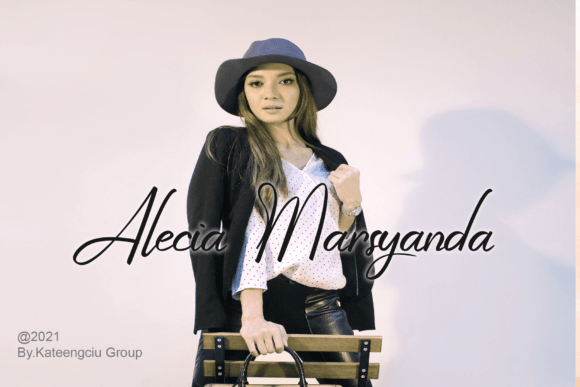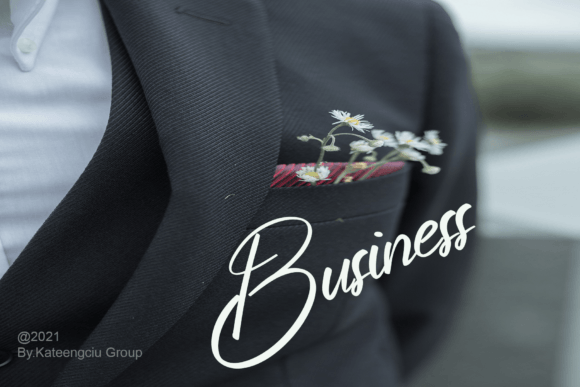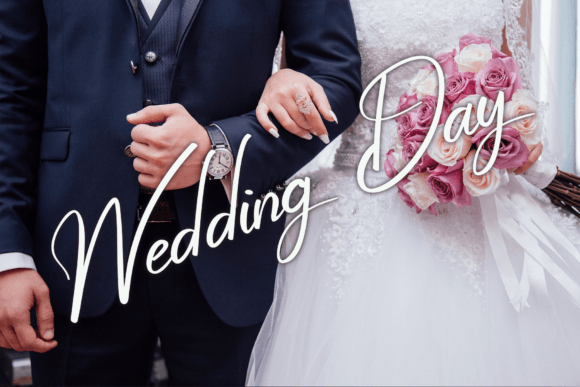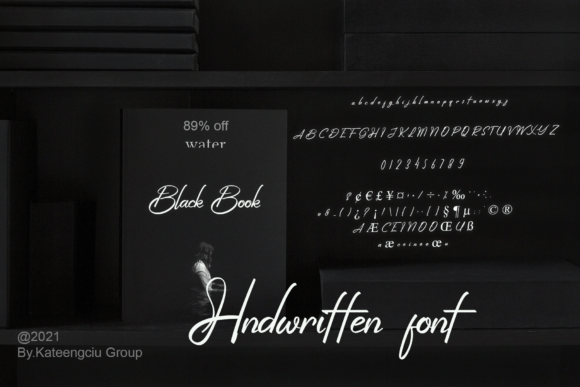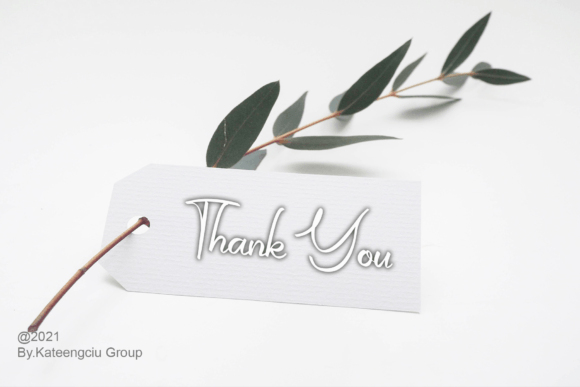
Wonderfuul Bewritten Font
**Wonderfuul Bewritten**: A font that embodies coolness, simplicity, and playfulness, “Wonderfuul Bewritten” is a handwritten gem that adds a touch of whimsy to any project. Its versatility knows no bounds, making it a perfect fit for a diverse range of designs. Whether you’re creating playful posters, trendy social media graphics, quirky invitations, or any other creative endeavor, this font effortlessly elevates your designs to new heights.
**Cool and Playful Appeal**: The font’s cool vibe and playful charm make it stand out in any context. Its handwritten style exudes a sense of authenticity, adding a personal touch to your projects. “Wonderfuul Bewritten” doesn’t just convey words; it carries an attitude. It’s perfect for projects that aim to capture attention and leave a memorable impression.
**Simplicity in Design**: Despite its playful nature, the font maintains a simplicity that enhances its overall appeal. The clean lines and easy readability ensure that your message is delivered clearly, making it suitable for a wide audience. Its straightforward design allows for seamless integration into various design layouts, making it a popular choice among designers seeking a versatile and user-friendly font.
**Versatility Unleashed**: The versatility of “Wonderfuul Bewritten” knows no bounds. From casual and fun projects to more sophisticated designs, this font adapts effortlessly, transforming mundane ideas into captivating visual stories. It’s a chameleon font, able to fit into any creative concept and elevate it with its charm and simplicity.
**Bringing Ideas to Life**: When added to your favorite creative ideas, “Wonderfuul Bewritten” breathes life into them. It injects energy and personality, turning ordinary designs into extraordinary creations. Watch as your projects come alive with the playful spirit of this font, making them not just visually appealing but also engaging and lively.
In conclusion, “Wonderfuul Bewritten” is more than just a font; it’s a creative catalyst. Its cool, simple, and playful nature makes it a valuable asset for designers looking to infuse their projects with character and charm. So, go ahead, add this font to your creative arsenal, and witness how it transforms your ideas into vibrant, captivating designs. Let “Wonderfuul Bewritten” be the spark that ignites your creativity and brings your visions to life in the most delightful and playful way possible!